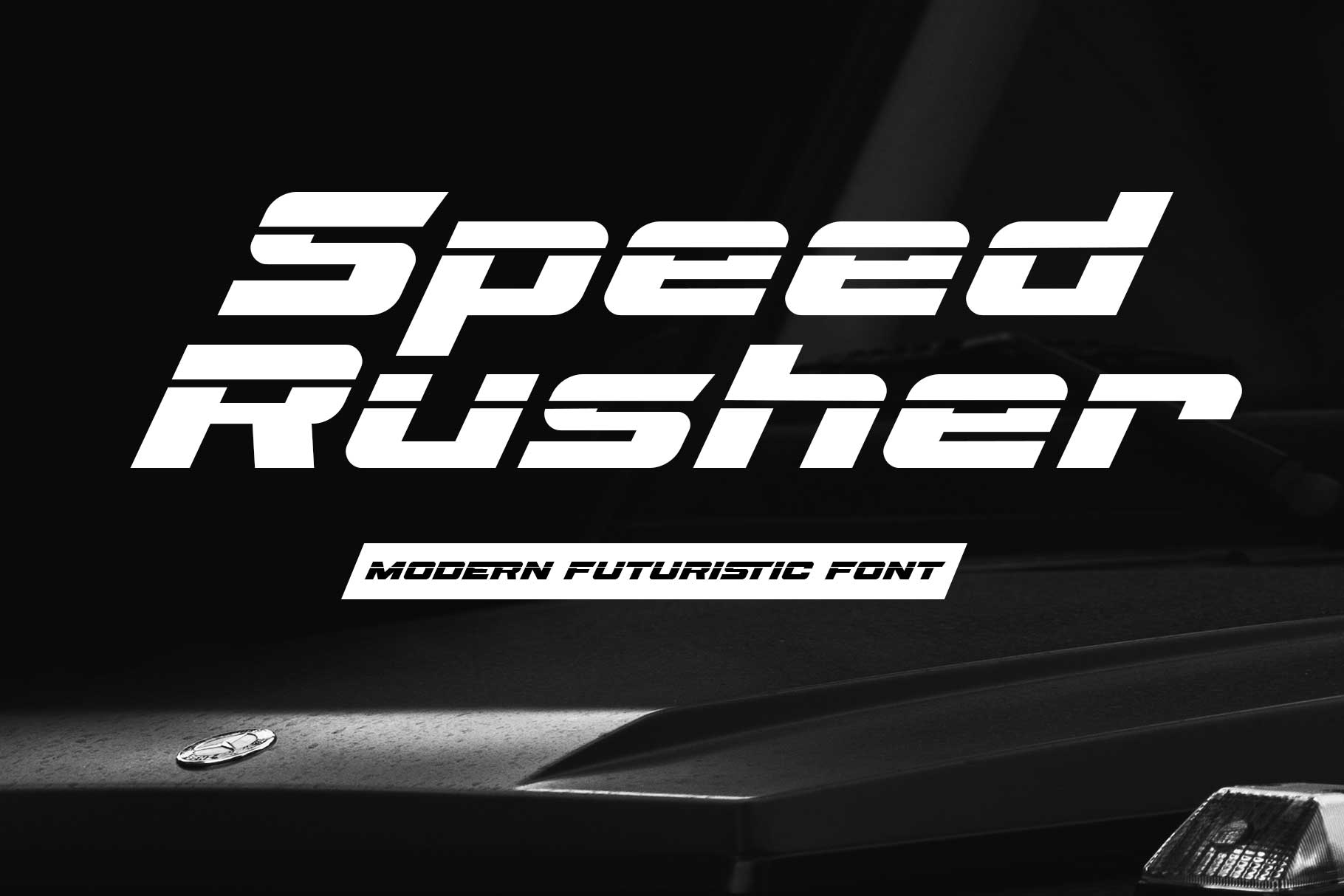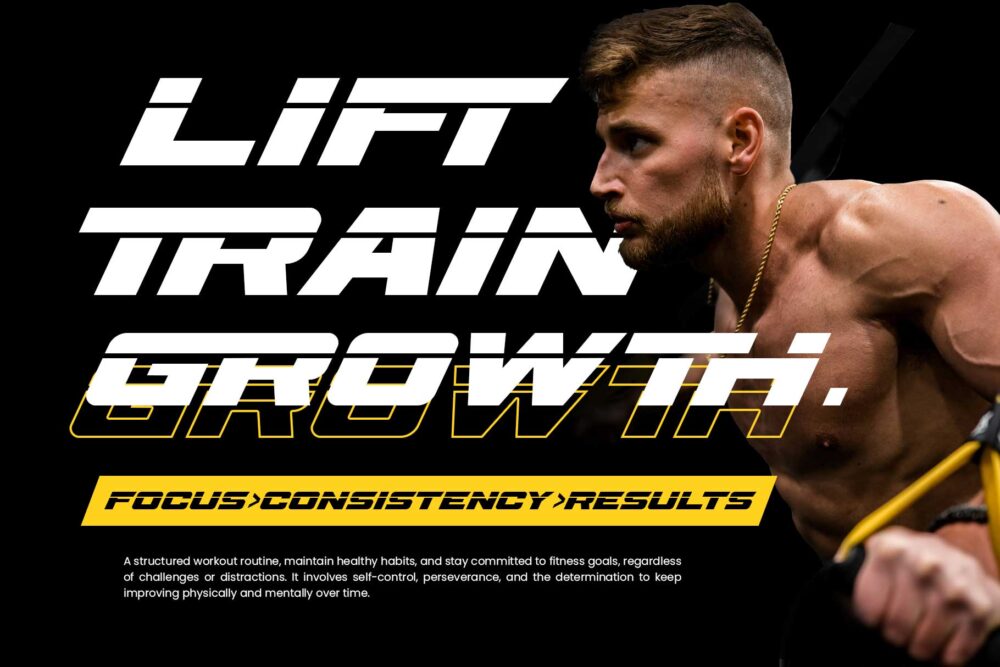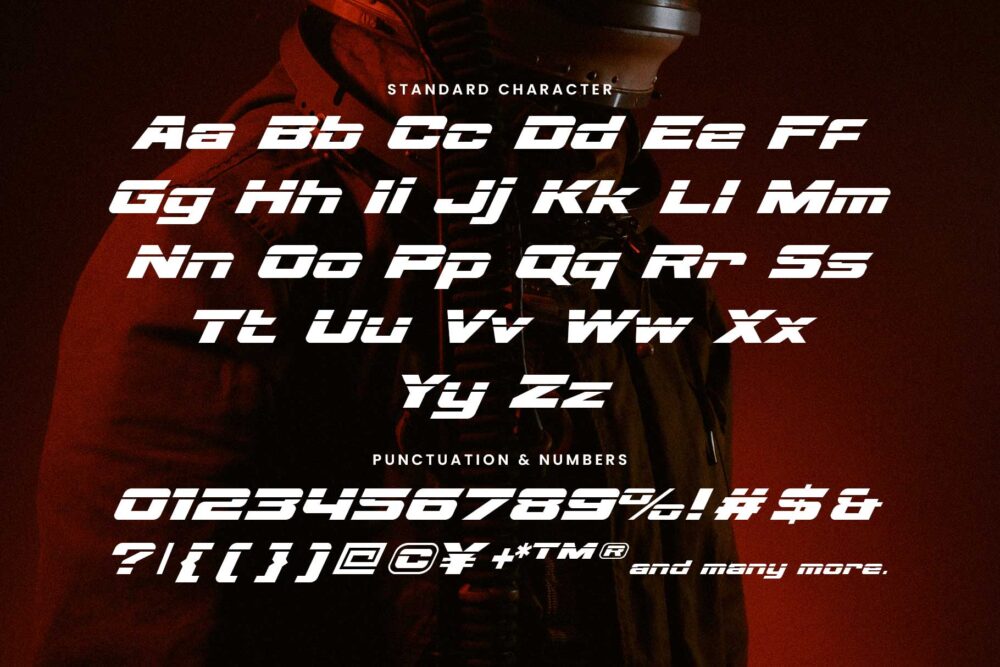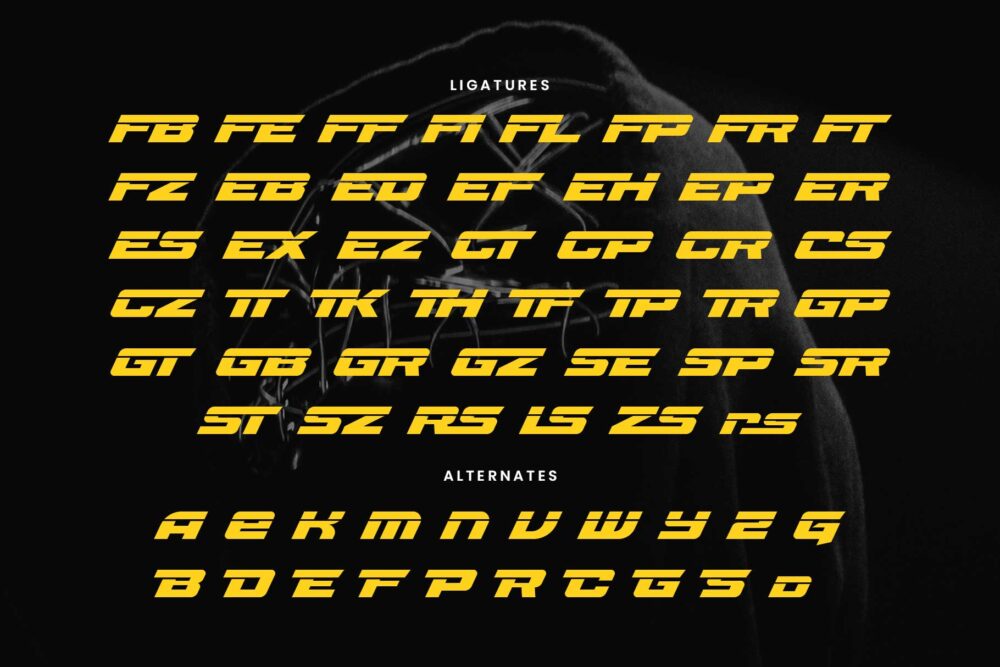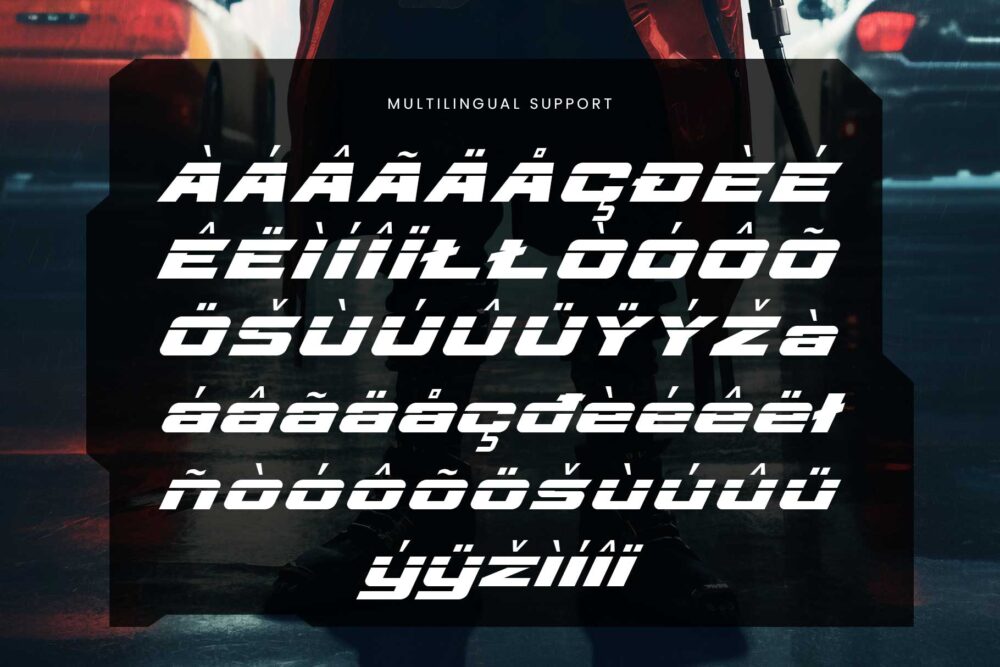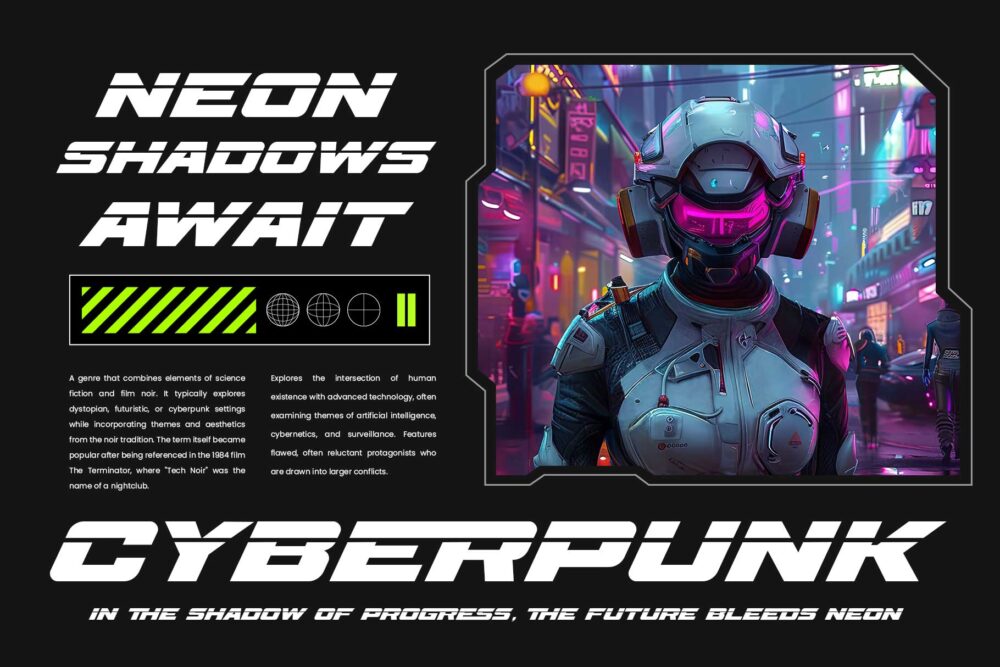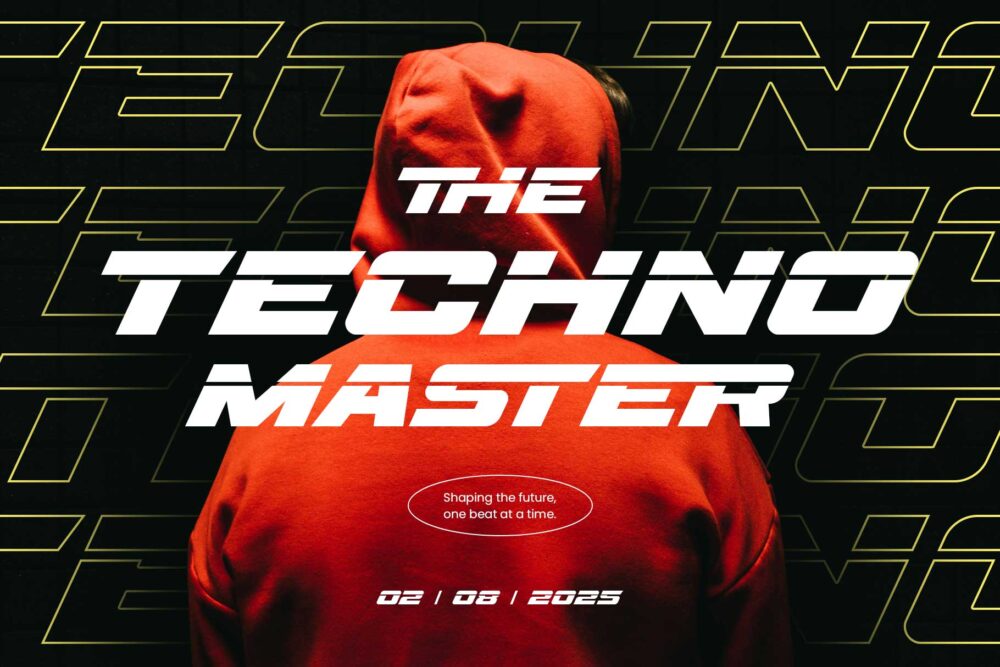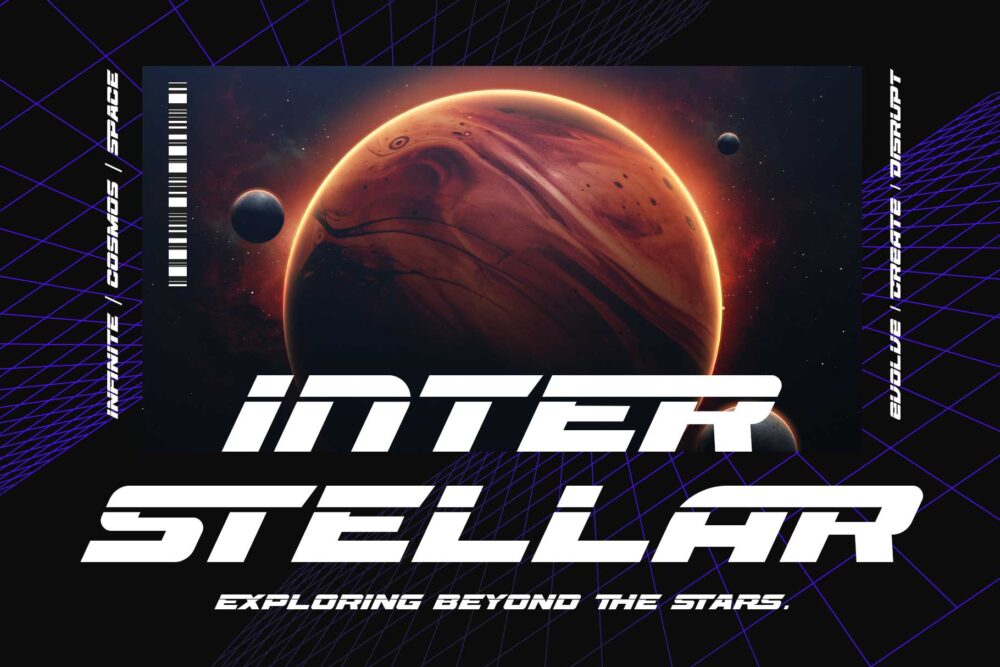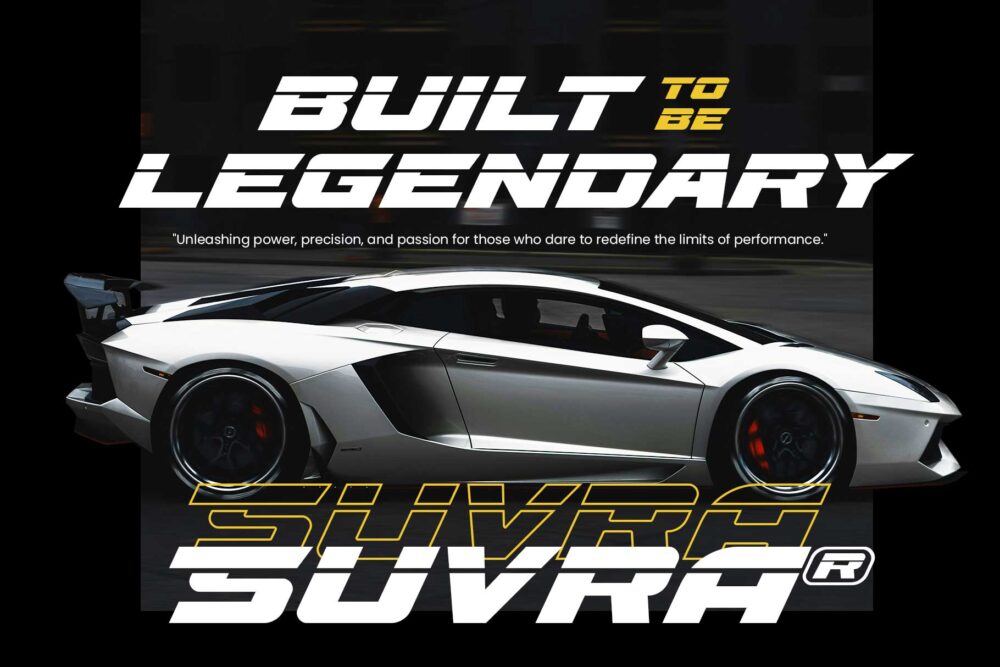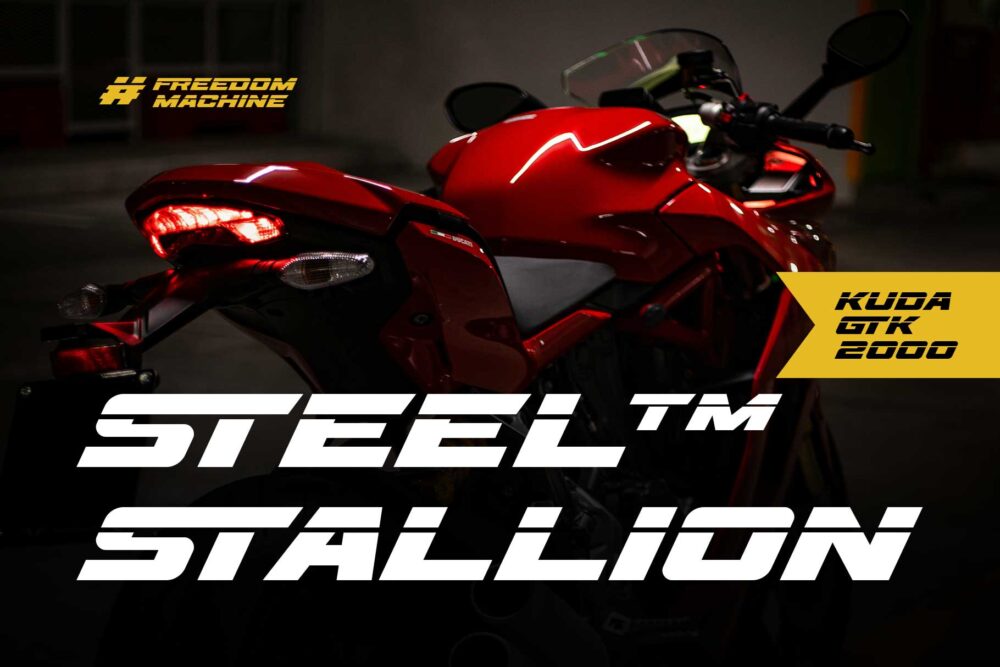
Speed Rusher, elegant bold for futuristic and sporty themes.
Speed Rusher
Introducing Speed Rusher – The Best Sporty and Futuristic Font
Speed Rusher is an elegant, sporty font with a cutting-edge futuristic vibe. Designed with sleek laser-cut letter effects and bold strokes, it embodies speed, power, and advanced technology. Perfectly suited for sports-themed and futuristic designs, this font brings a dynamic and modern edge to your projects.
Packed with stylistic alternates and ligatures, Speed Rusher offers endless creative possibilities, allowing you to craft luxurious and distinctive typography that stands out from the crowd.
Elevate your designs with Speed Rusher, the ultimate font choice for professionals looking for excellence in sports, technology, and futuristic themes.
Fonts featured :
• Uppercase
• Lowercase
• Numbers
• Symbols
• Stylistic alternates
• Ligatures
• Accented characters
Speed Rusher – Sporty Futuristic